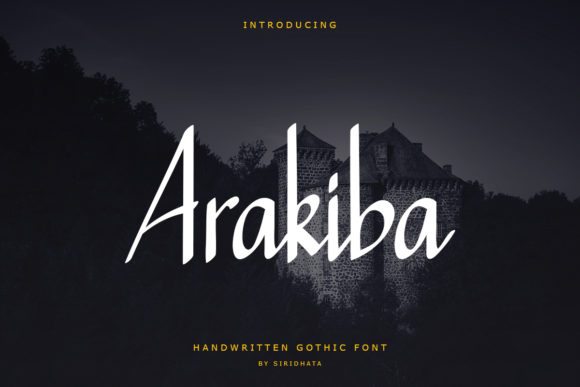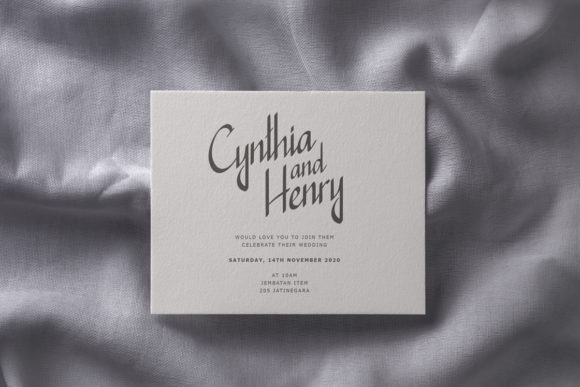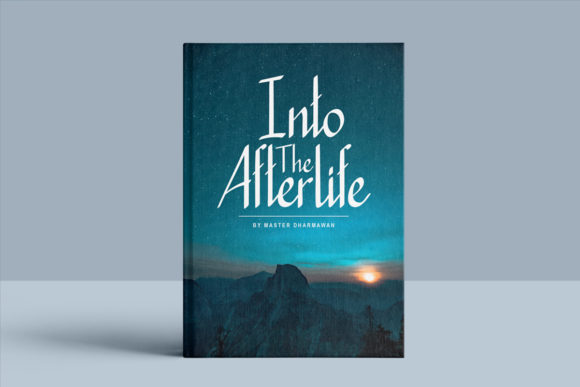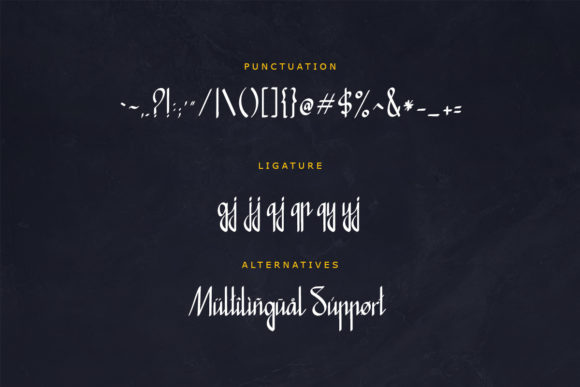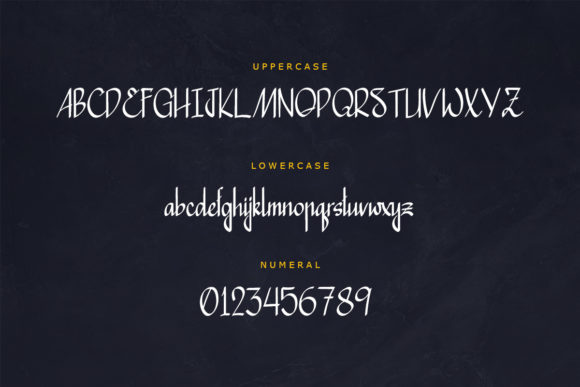
HomeScript FontsArakiba Font Script Fonts Arakiba Font FacebookXPinterestWhatsApp Arakiba Font Poster 2 Arakiba Font Poster 3 Arakiba Font Poster 4 Arakiba Font Poster 5 About Arakiba Font Arakiba is a playfully modern script with a unique, calligraphic style. Fall in love with its elegant charm. DOWNLOAD ON CREATIVE FABRICAThis font is sold and delivered by Creative Fabrica. Font Canyon may earn a commission if you buy through this link. People also explored Januari Font Elvira Font Snow White Font Nanuk Geblengen Font Story Halloween Font Fat Llama Font Elegia Bridgeth Font 414 0 TagsArakiba Font Previous articleSwandana FontNext articleOrange Milkshake Font LEAVE A REPLY Cancel reply Comment: Please enter your comment! Name:* Please enter your name here Email:* You have entered an incorrect email address! Please enter your email address here Website: Save my name, email, and website in this browser for the next time I comment. Personal Use Free Befindisa Personal Use Free Read more about this font Propaniac Personal Use Free Read more about this font Comic Caps Personal Use Free Read more about this font 1980 Portable Personal Use Free Read more about this font BLOG Elegant Wedding Invitation Fonts – Handwritten & Script Fonts Elegant Wedding Invitation Fonts Your wedding day is one of the most important moments of your life, and every detail matters—including your invitation design. Our... Using Fonts in Digital Marketing: Tips to Strengthen Your Brand Identity To increase your work productivity, choose the most readable fonts. Modern Sans-Serif Fonts That Brands Love in 2025